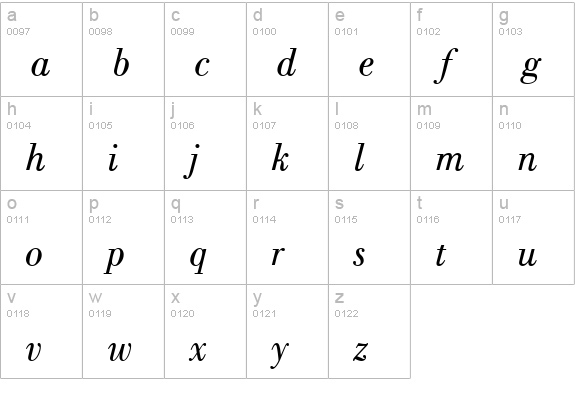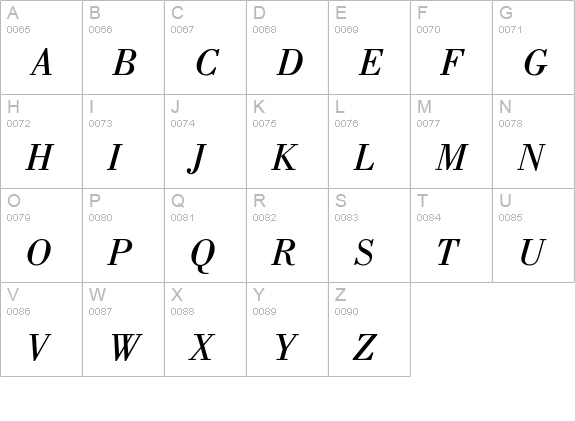
Bodony Italic Font Details
Bodony Italic is a distinctive, italic variant in the Bodony typeface family \xE2\x80\x94 well suited to design and typography projects.
Bodony Italic font exudes elegance and sophistication with its graceful curves and flowing lines. Designed to add a touch of refinement to any design project, this font strikes the perfect balance between modernity and classic style. The slanted, italicized letterforms create a sense of movement and dynamism, making Bodony Italic a versatile choice for a wide range of applications. What sets Bodony Italic apart is not just its aesthetic appeal, but also the fact that it is available for free download at FontsMarket.com. This means that you can easily access this premium font without any cost, making it an excellent choice for designers on a budget or those looking to experiment with new typefaces. Whether you're working on a branding project, editorial design, or any other creative endeavor, Bodony Italic is sure to elevate your work with its timeless charm and effortless sophistication.